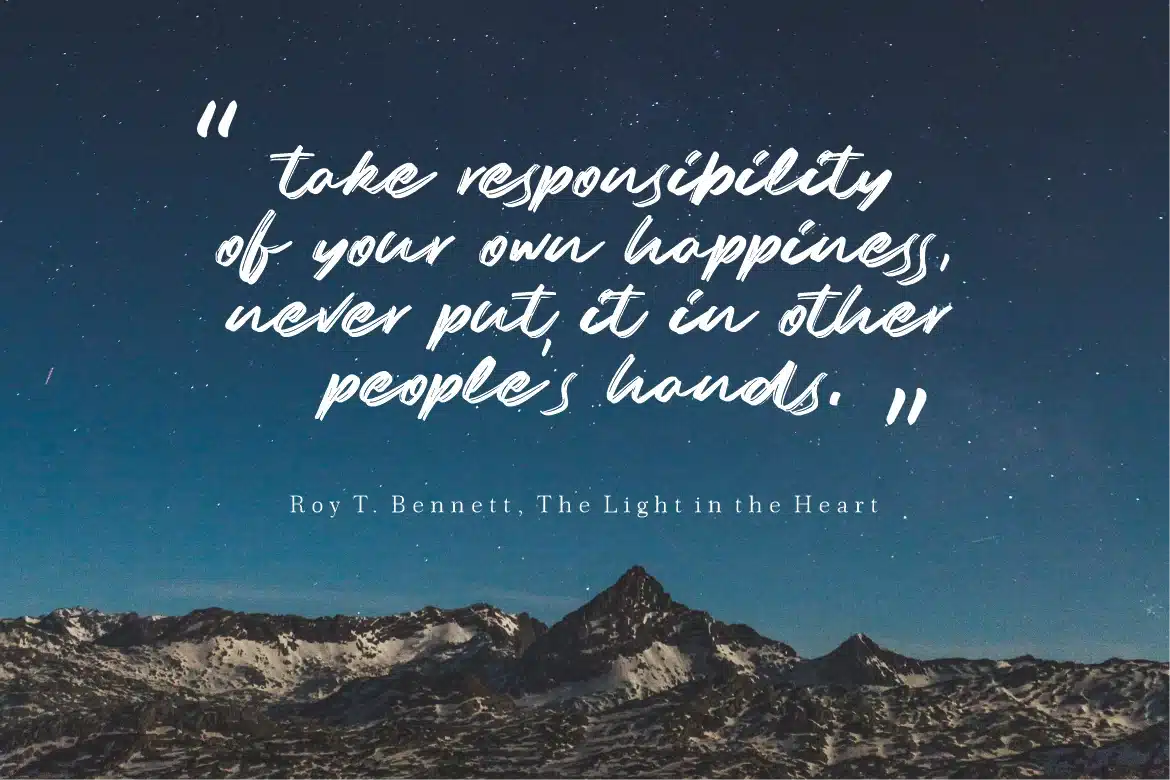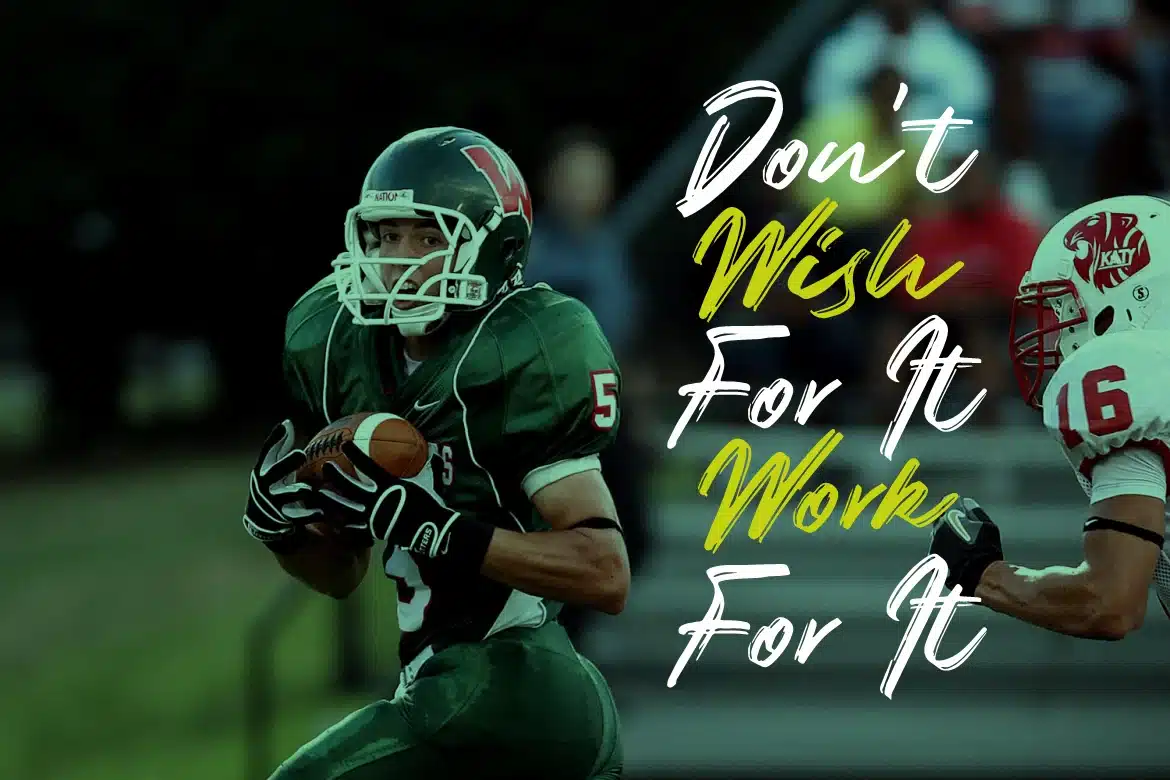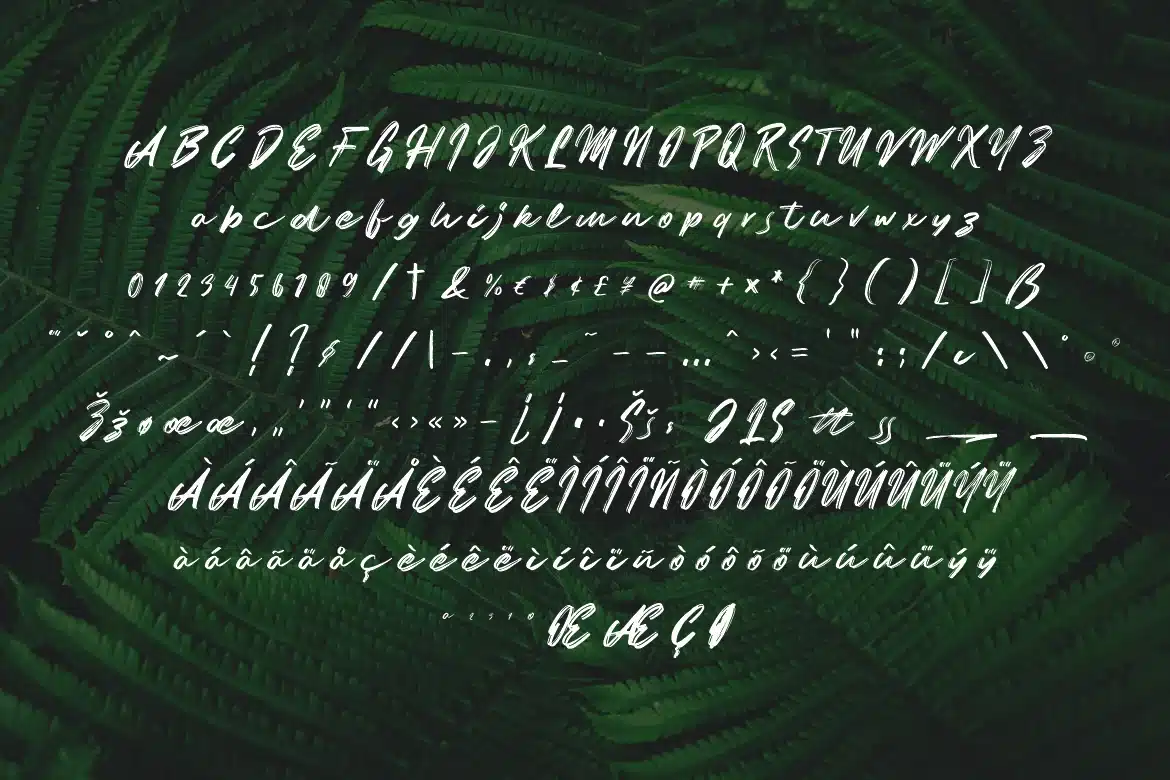
AMR Resshoir Font
Introducing Resshoir , a elegant brush handwrittem typeface. With dry brush texture that you can feel it. This font will rock your any design projects.
Ligatures ✔
Stylistic Alternates ✔